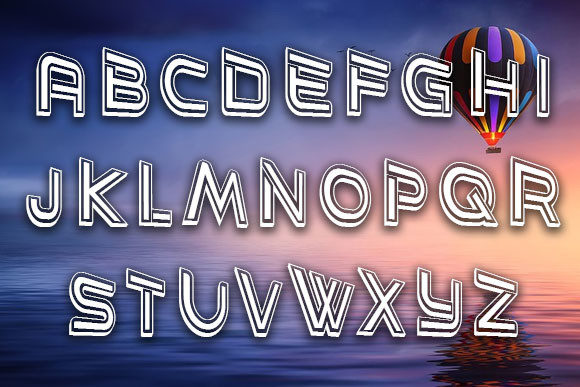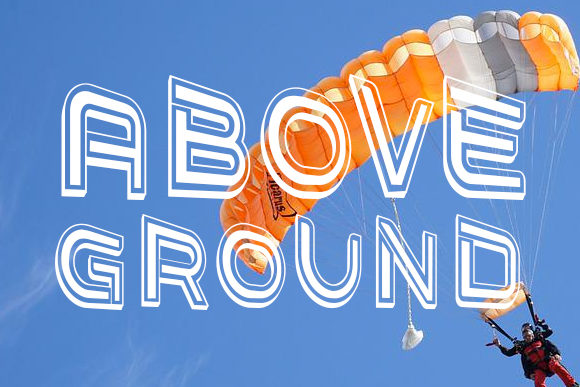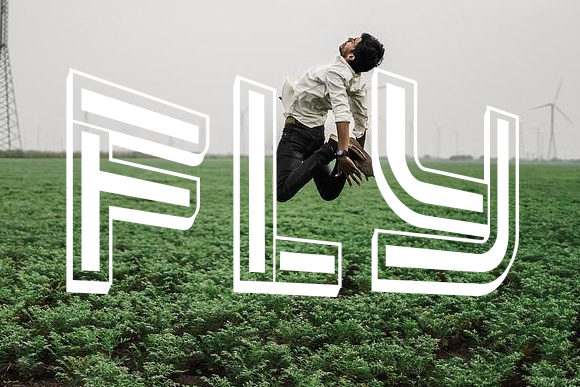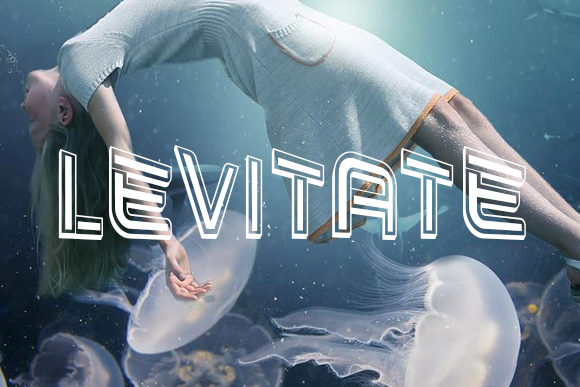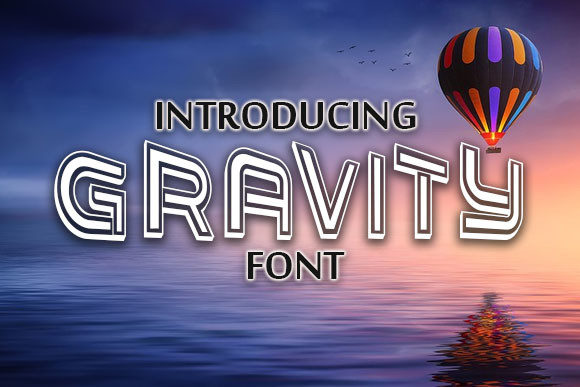
Introducing Gravity Font: Elevate Your Designs with a Stunning 3D-Looking Display Font
Are you tired of using the same old fonts in your designs? Look no further! Gravity Font is here to revolutionize the way you create stunning visual content. This awesome 3D-looking display font is perfect for designers and crafters who want to add a touch of sophistication and elegance to their work. In this article, we’ll dive into the features and benefits of Gravity Font, and explore how you can use it to take your designs to the next level.
What is Gravity Font?
Gravity Font is a modern display font that boasts a unique 3D-like appearance. Its sleek and futuristic design makes it perfect for creating eye-catching posters, flyers, brochures, and other visual materials. The font is designed to be highly versatile, allowing you to use it in a wide range of design projects, from advertising and branding to packaging and web design.
Key Features of Gravity Font
- Unique 3D-Like Appearance: Gravity Font features a distinctive 3D-like design that adds depth and dimension to your text.
- Highly Versatile: The font is perfect for use in a variety of design projects, from posters and flyers to logos and branding materials.
- Easily Customizable: Gravity Font is highly customizable, allowing you to adjust the font size, color, and style to suit your design needs.
Benefits of Using Gravity Font
So, why should you choose Gravity Font for your design projects? Here are just a few benefits of using this amazing font:
- Adds Visual Interest: Gravity Font’s unique 3D-like appearance adds visual interest to your designs, making them more engaging and attention-grabbing.
- Enhances Brand Identity: The font’s sleek and modern design makes it perfect for creating professional-looking brand materials that reflect your company’s values and personality.
- Boosts Creativity: Gravity Font’s versatility and customizability make it an ideal choice for designers who want to push the boundaries of their creativity.
How to Use Gravity Font in Your Designs
Using Gravity Font in your designs is easy! Here are a few tips to get you started:
- Pair it with a Simple Background: Gravity Font’s 3D-like appearance can be overwhelming if paired with a busy background. Try pairing it with a simple background to make your text stand out.
- Experiment with Colors: Gravity Font comes in a range of colors, but you can also experiment with different colors to match your brand’s color scheme.
- Use it for Headings and Titles: Gravity Font is perfect for creating eye-catching headings and titles that grab attention.